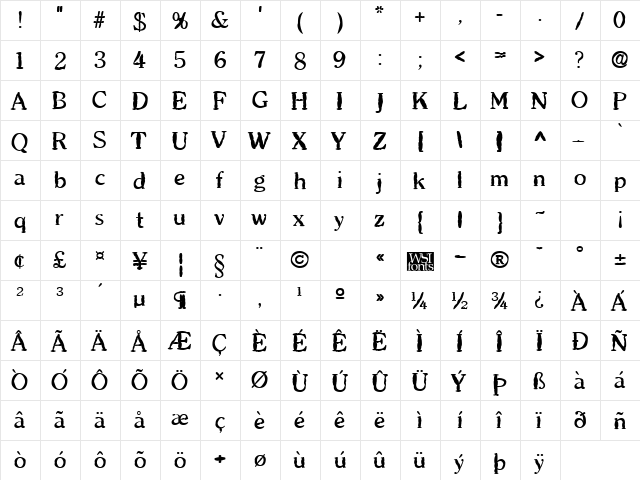
ClearlyMangledRoman Regular
Design Context for ClearlyMangledRoman Typeface
ClearlyMangledRoman takes a measured approach to typography — its balanced proportions and neutral character make it a reliable workhorse for both digital and print work.
Pro Tip: Use ClearlyMangledRoman in both headline and body roles to test its range before committing to a single application.